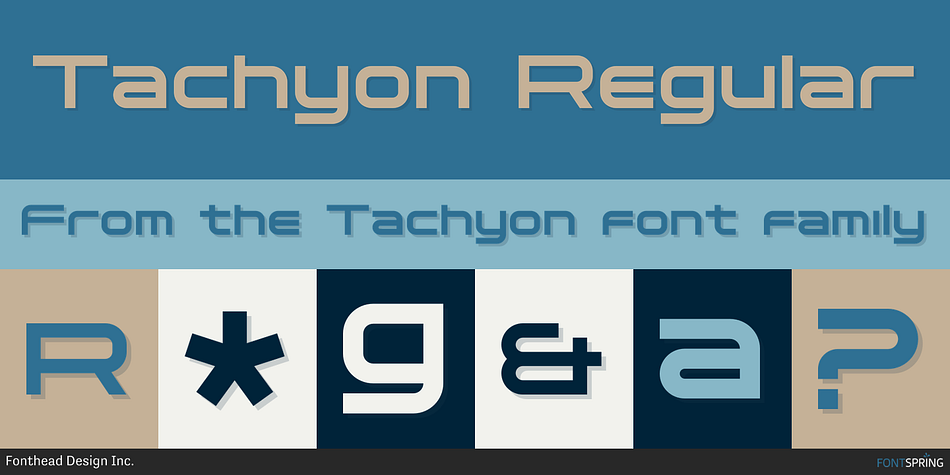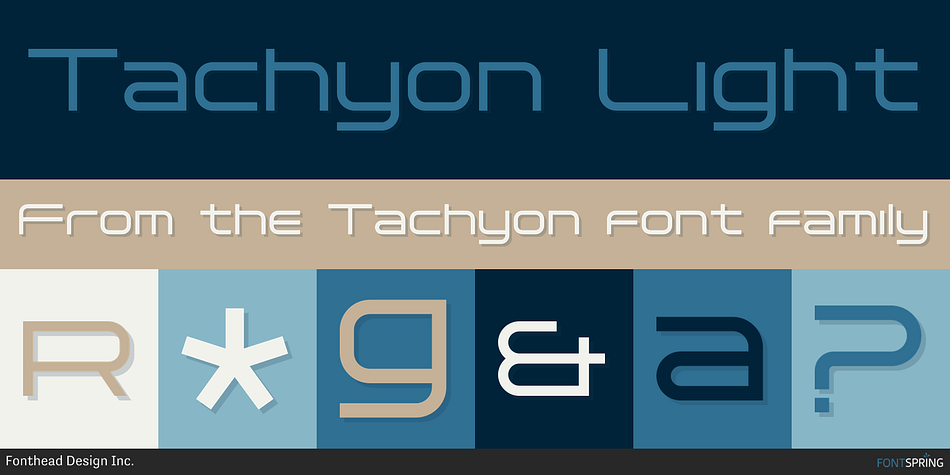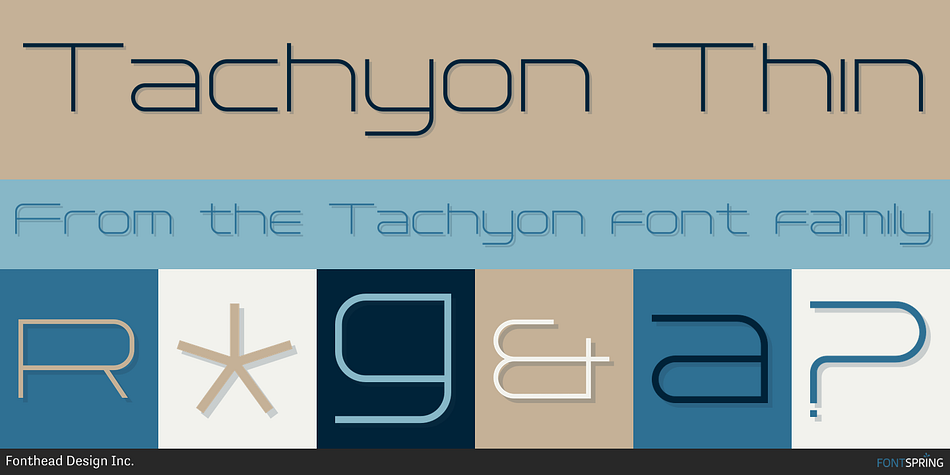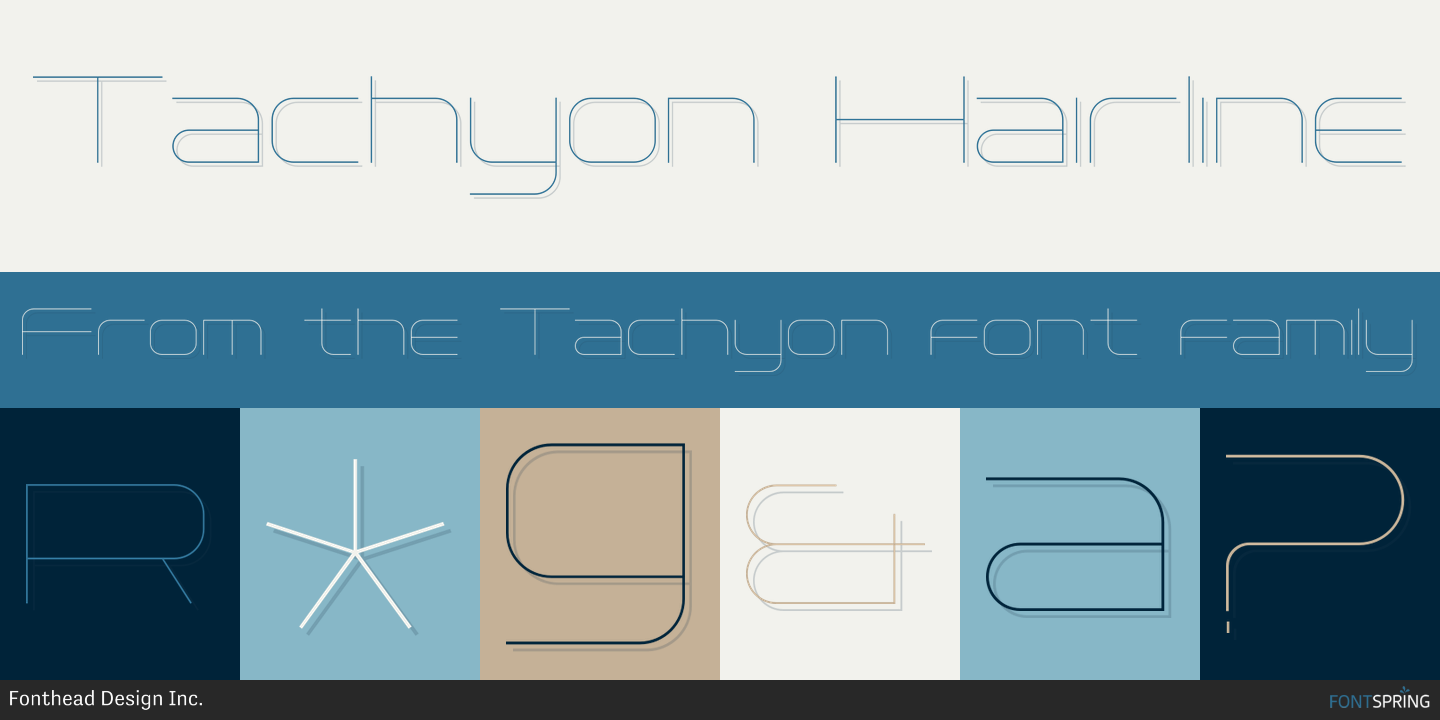
Tachyon is a display sans font family. This typeface has four styles and was published by Fonthead Design.
Tachyon is a family designed by Ethan Dunham that has clean simple lines.
The family comes in four weights, regular, light, thin and hairline. The hairline version is extremely light and useable only at larger point sizes.
This family is perfect where a high-tech look is needed.